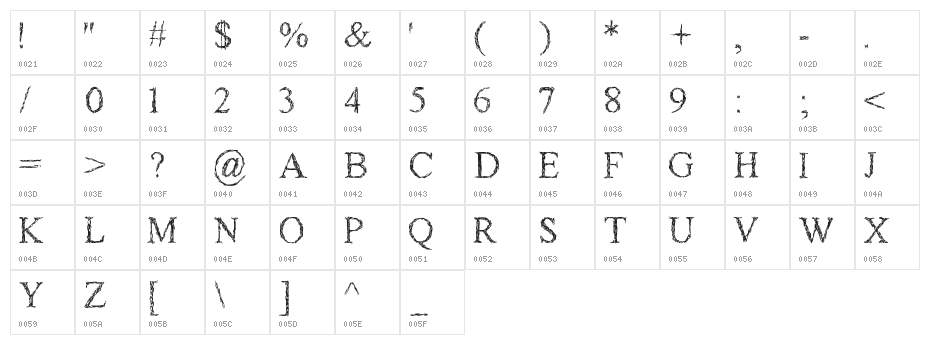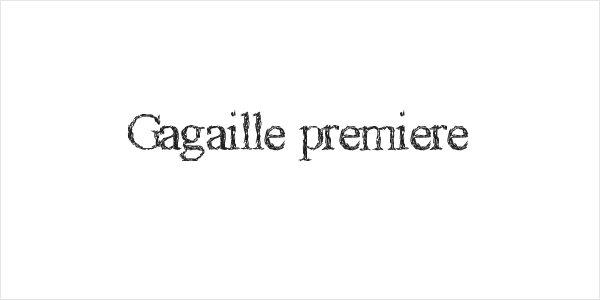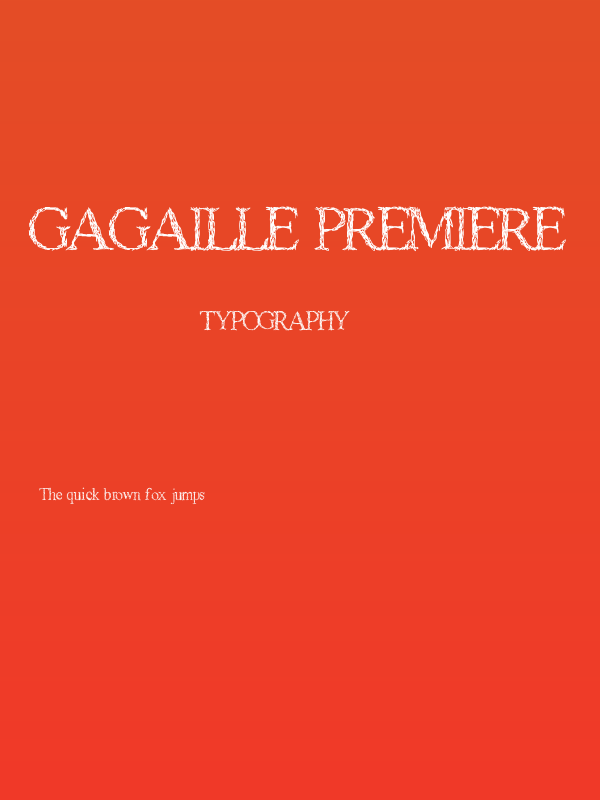
Gagaille premiere Font
Gagaille premiere Description
This font features a highly decorative and textured style, resembling hand-drawn or sketched letters. Each character appears to be composed of intricate, overlapping lines, giving it a chaotic yet artistic appearance. The uppercase and lowercase letters maintain a consistent design, with the uppercase being slightly larger and more pronounced. Numbers and special characters follow the same textured pattern, ensuring uniformity across all glyphs. The font's unique style makes it stand out, ideal for creative projects that require a bold and unconventional look.
| Use Case | Headlines, Logos, Artistic projects |
| Proposed Projects | Ideal for artistic projects, posters, album covers, and any design requiring a bold, creative touch. |